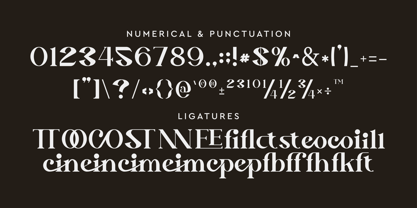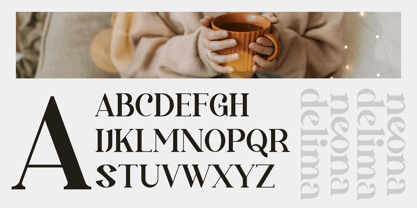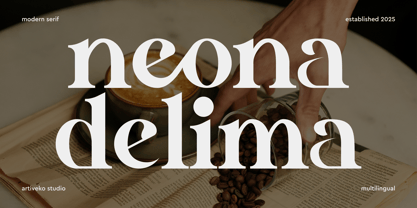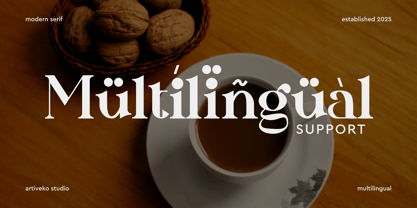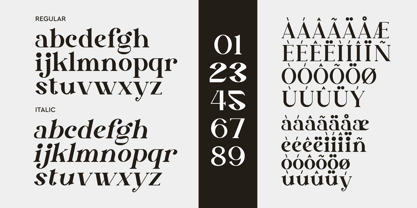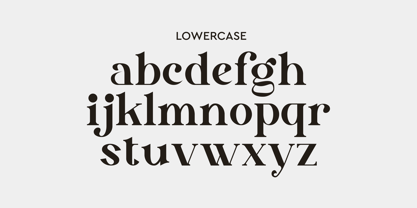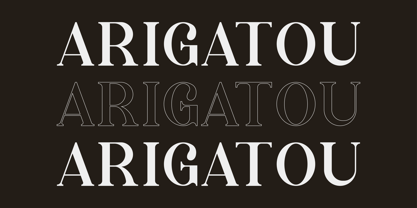
Neona Delima
by Artiveko
The Neona Delima Font Family was designed by Iwan Alwan and published by Artiveko. Neona Delima contains 2 styles and family package options. More about this family
Neona Delima is a creative luxury serif font by Iwan Alwan, designed with graceful curves and intricate details that exude elegance and sophistication. Perfect for branding, wedding invitations, editorial design, and upscale packaging, Neona Delima combines timeless serif charm with a modern creative twist. Featuring multilingual support, ligatures, and alternates, this font offers versatility and refinement, making it the ideal choice for projects that demand a luxurious and distinctive aesthetic.
Designers: Iwan Alwan
Foundry: Artiveko